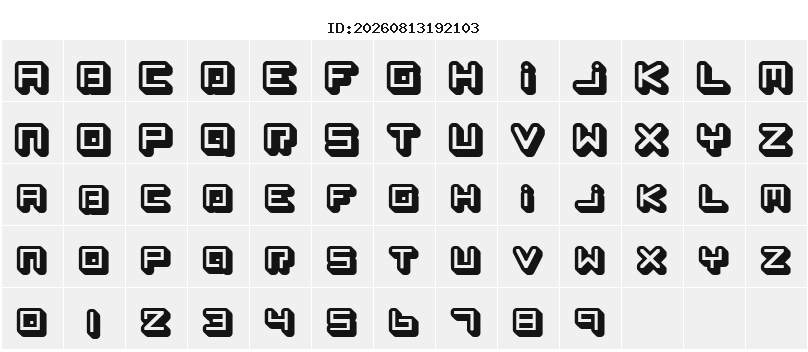
spleen machine Preview
• Font Name: spleen machine
• Designer: paintblack
About spleen machine.ttf
spleen machine.ttf is a modern, elegant sans-serif font designed for ultimate readability and visual harmony. Perfect for branding, headlines, web design, and print materials.